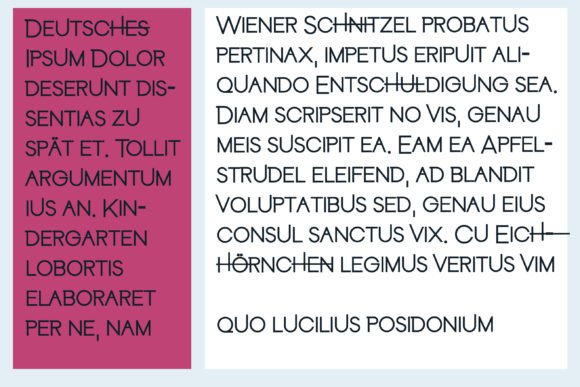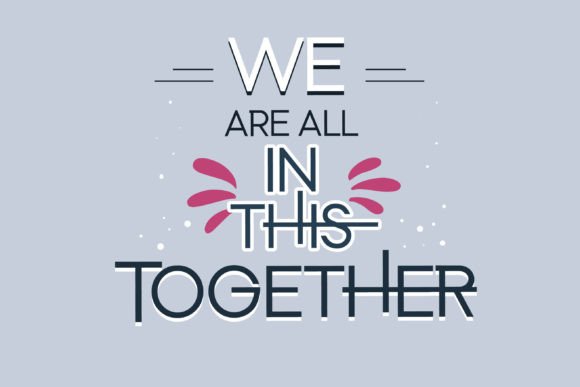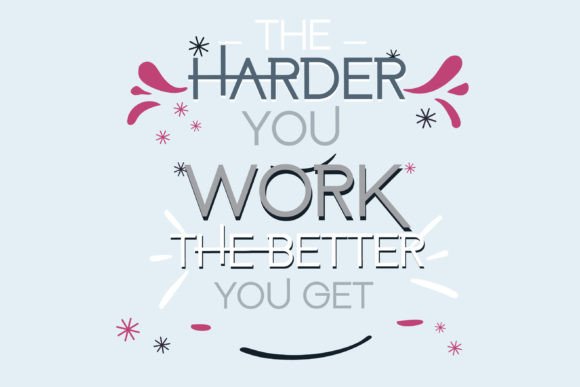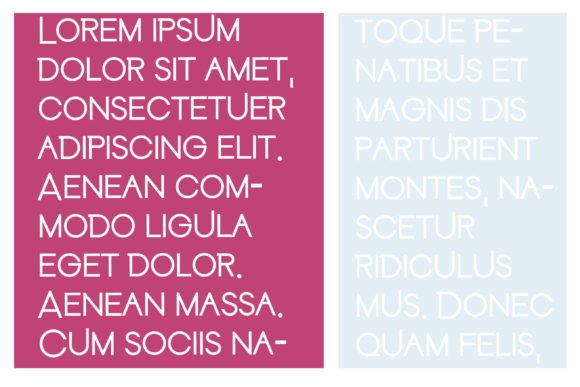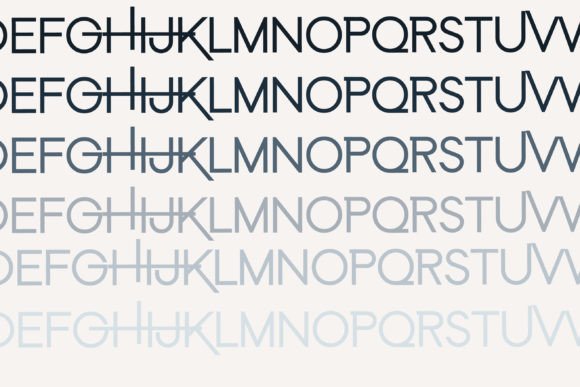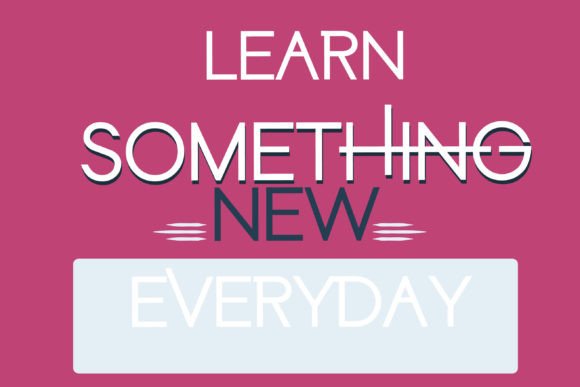
Discover the Unique Charm of Doctor John Font: Elevate Your Designs with this Stylish Sans Serif Font
Are you tired of using the same old fonts in your designs? Look no further than the Doctor John Font, a stylish sans serif font that’s sure to take your creative projects to the next level. With its distinctive features and versatility, this font is perfect for designers and crafters looking to add a touch of personality to their work.
A Font that’s Truly One-of-a-Kind
Doctor John Font is an all-cap font with a slightly smaller lowercase, giving it a unique and eye-catching appearance. One of its standout features is the “h” with a fun, extra-long crossbar, which adds a playful touch to any design. This font is masterfully designed to become a true favorite among designers, and it’s easy to see why. Whether you’re working on a logo, brochure, or website, Doctor John Font has the potential to bring each of your creative ideas to the highest level.
Key Features of Doctor John Font
- All-cap font with slightly smaller lowercase: This unique feature gives Doctor John Font a distinctive look that’s sure to grab attention.
- Extra-long crossbar on the “h”: This playful feature adds a touch of whimsy to any design.
- Sans serif design: The clean lines and modern look of this font make it perfect for a wide range of design projects.
- Versatile: Whether you’re working on a logo, brochure, or website, Doctor John Font is the perfect choice.
Why Designers and Crafters Love Doctor John Font
So, what makes Doctor John Font so popular among designers and crafters? For one, its unique features make it a great choice for projects that require a bit of personality. Additionally, its versatility means that it can be used in a wide range of design projects, from logos and brochures to websites and more. Whether you’re looking to create a bold and eye-catching design or something more subtle and sophisticated, Doctor John Font is the perfect choice.
How to Use Doctor John Font in Your Designs
Using Doctor John Font in your designs is easy. Here are a few tips to get you started:
- Pair it with other fonts: Doctor John Font pairs well with a variety of other fonts, so don’t be afraid to experiment and find the perfect combination for your design.
- Use it for headings: The bold and eye-catching design of Doctor John Font makes it perfect for headings and titles.
- Add some color: Doctor John Font looks great in a variety of colors, so don’t be afraid to get creative and add some personality to your design.
In conclusion, Doctor John Font is a stylish and versatile sans serif font that’s perfect for designers and crafters looking to add a touch of personality to their work. With its unique features and clean design, this font is sure to become a favorite among designers. Whether you’re working on a logo, brochure, or website, Doctor John Font has the potential to bring each of your creative ideas to the highest level. So why wait? Give Doctor John Font a try today and see the difference it can make in your designs!
With its extra-long crossbar on the “h” and slightly smaller lowercase, Doctor John Font is a font that’s sure to stand out from the crowd. Its sans serif design and versatile nature make it perfect for a wide range of design projects. Whether you’re a seasoned designer or just starting out, Doctor John Font is a great choice for anyone looking to elevate their designs and bring their creative ideas to life.